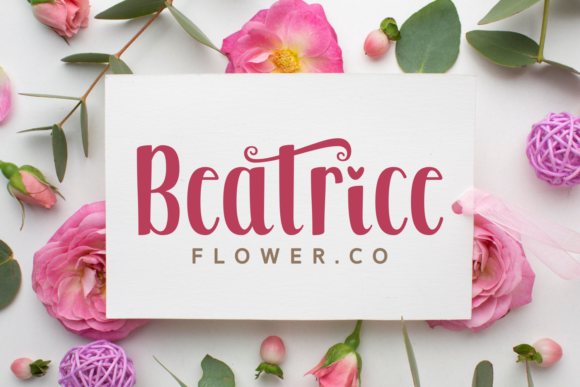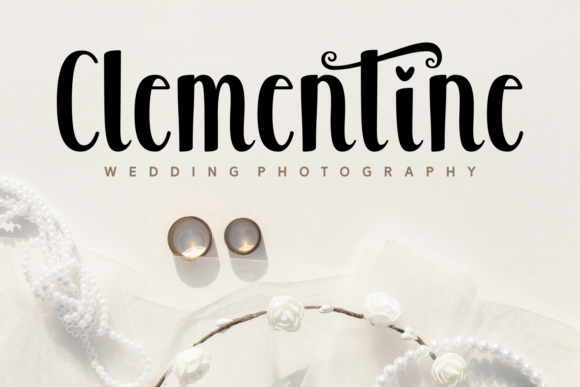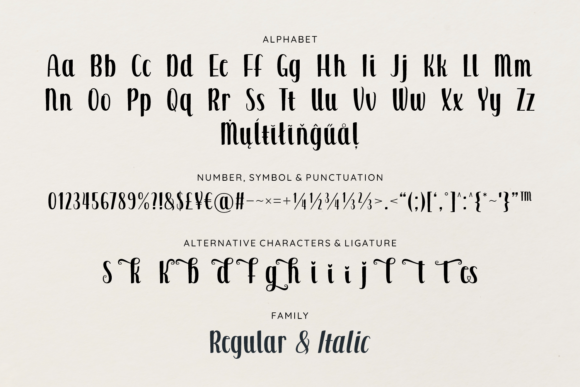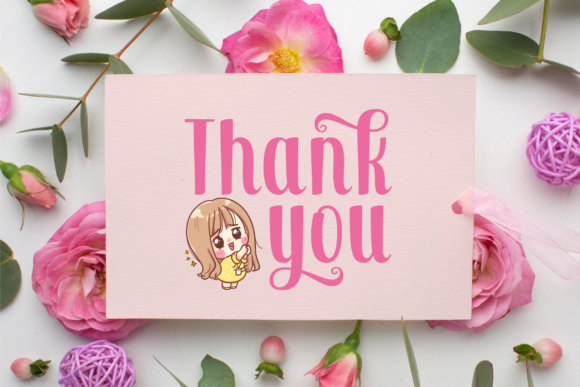
Introduction to Restika Font
Remember that moment when you stumble upon the perfect design element, and it elevates your entire creative project? For designers, it’s like finding a treasure that adds that extra oomph to your work. For me, it was discovering the beautiful Restika Font – a stunning handwritten typeface that has become my go-to for any design that requires a touch of elegance.
What sets Restika Font apart is its versatility and high-quality design. Available in Regular and Italic versions, this font is perfect for wedding invitations, business cards, logos, and more. With its free download option, you can experiment with different designs without worrying about licensing costs. Plus, its transparent background makes it easy to use in various design applications.
For designers, having access to a valuable design resource like Restika Font can be a game-changer. It offers a unique and creative way to express your brand’s personality and style, making it a must-have in your design arsenal.
Key Features of Restika Font
- High-quality design: Restika Font is a premium font perfect for creative projects, offering a unique and stylish look.
Honest Review: Restika Font
As a designer, I’m always on the lookout for high-quality design resources to enhance my creative projects. The Restika Font caught my eye with its sleek and modern aesthetic, making it a great addition to any design portfolio.
- ✨ Unique and modern design style that’s perfect for creative projects.
- ⚠️ The font is not available with a transparent background, which may limit its use in certain design scenarios.
- ⚠️ The font family is relatively small, with only a few weights and styles available.
Overall, the Restika Font is a solid addition to any design resource library. While it may not offer the most extensive range of features, its modern design style and free download make it a great choice for designers on a budget or looking to add some flair to their creative projects.
Tips for Getting the Most Out of Restika Font
To get the most out of Restika Font, experiment with different font sizes, styles, and combinations. You can also use the font in conjunction with other design elements to create a unique and visually appealing design.
Restika Font is perfect for creative projects such as logo design, branding, and marketing materials. It’s also great for use in presentations, reports, and other business documents where a unique and eye-catching font is desired.